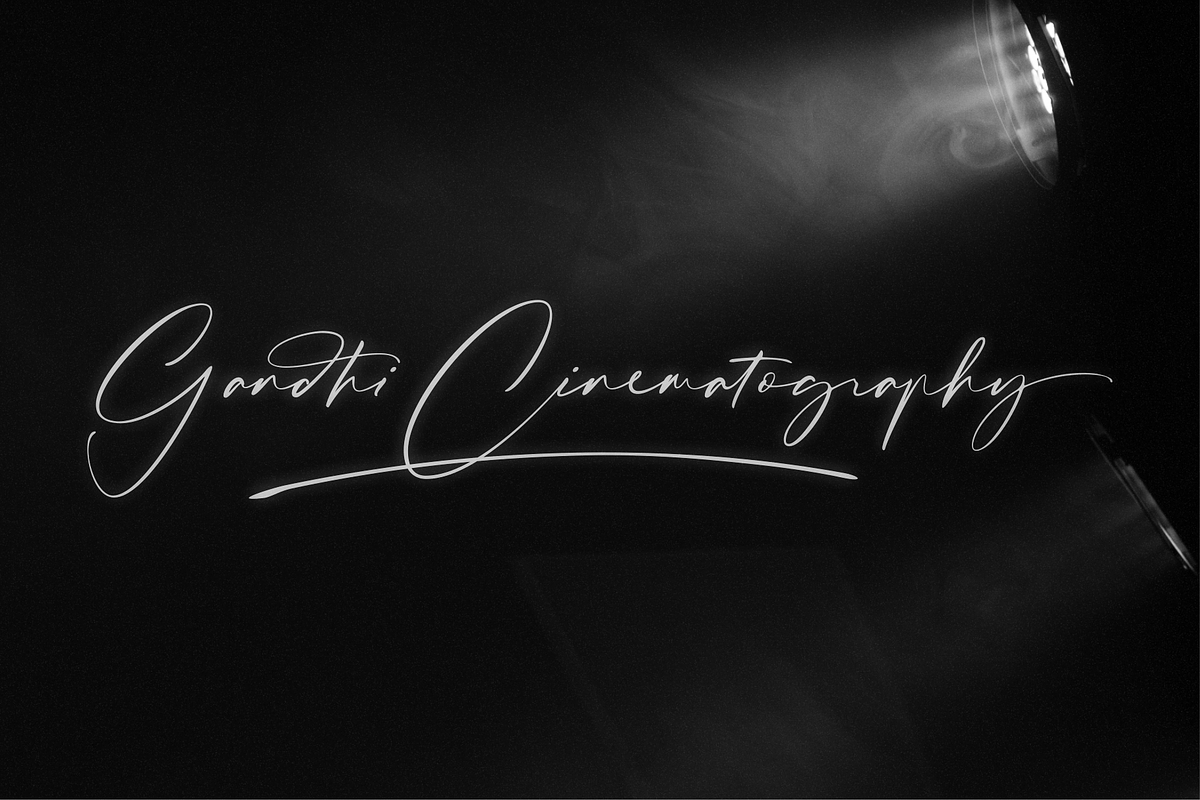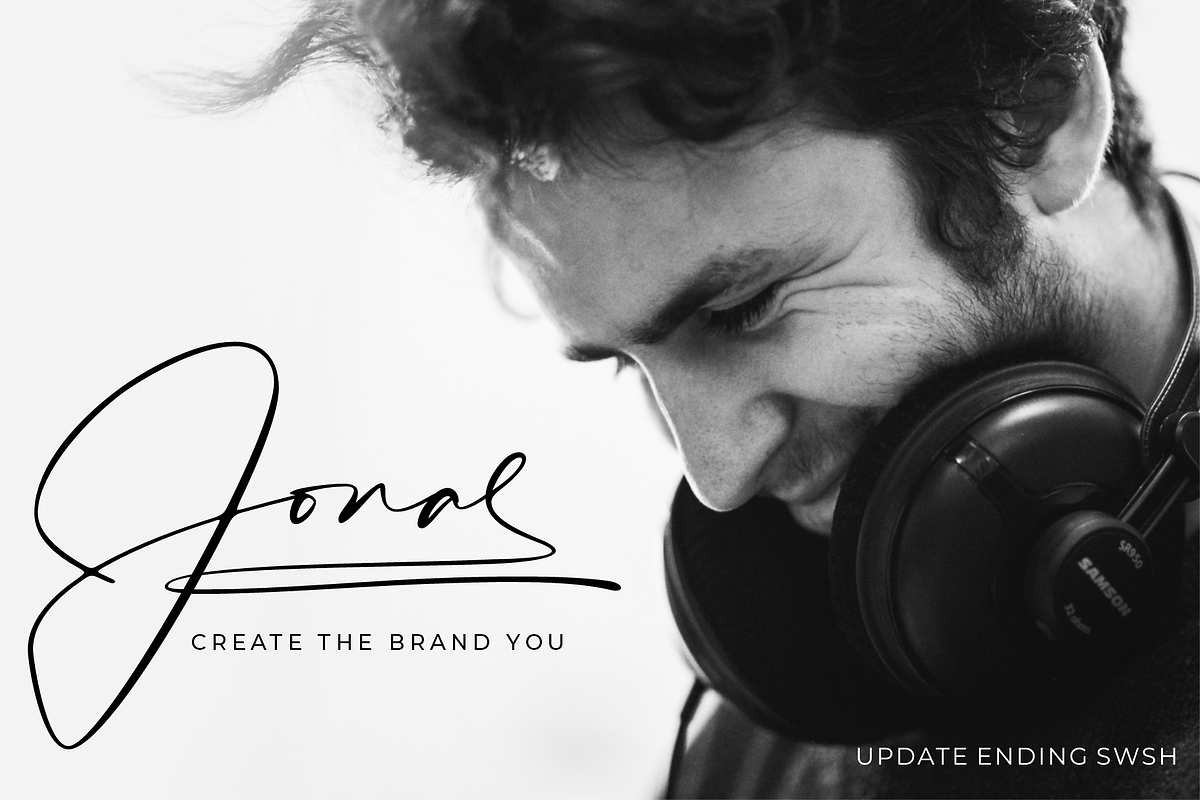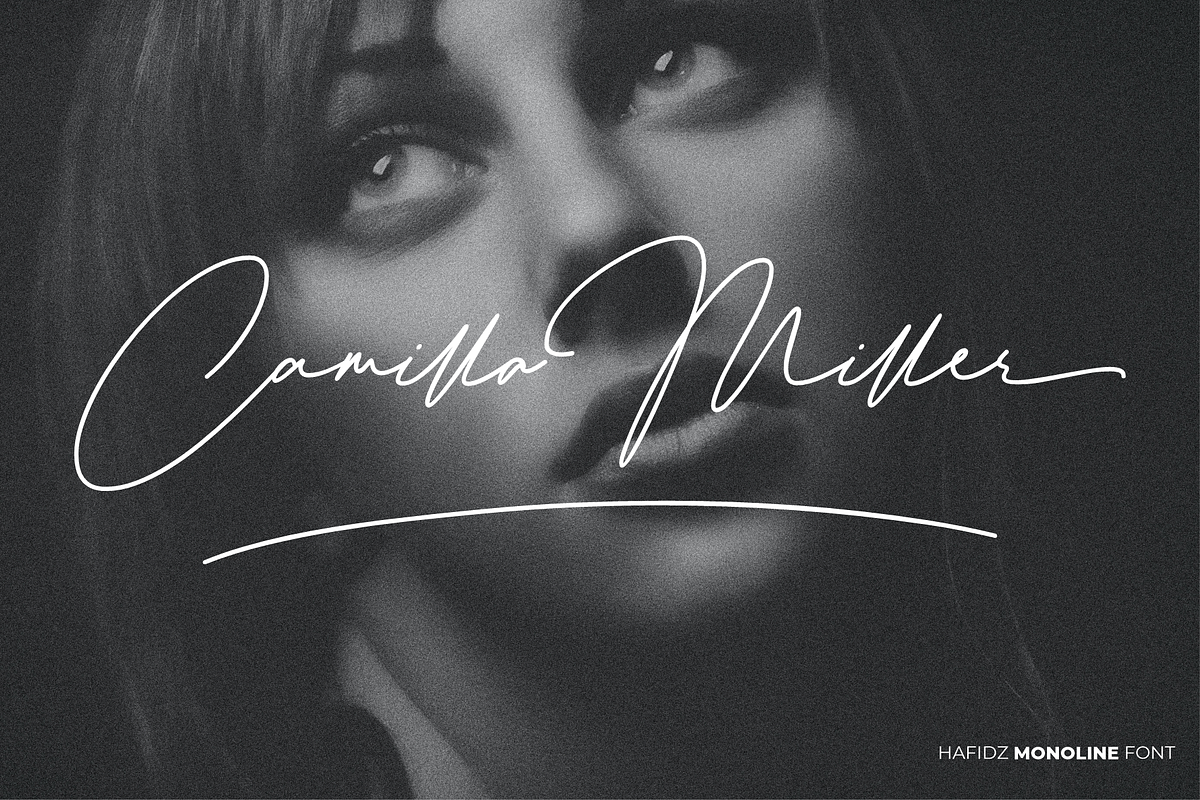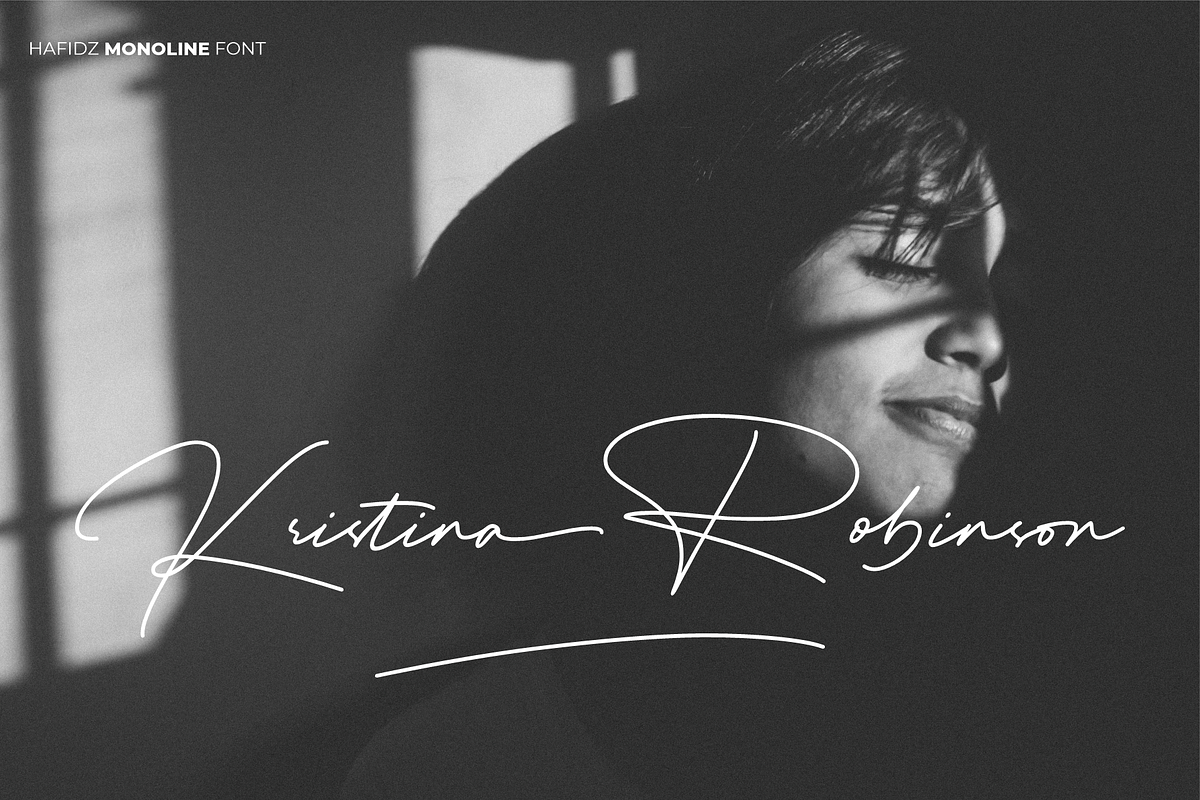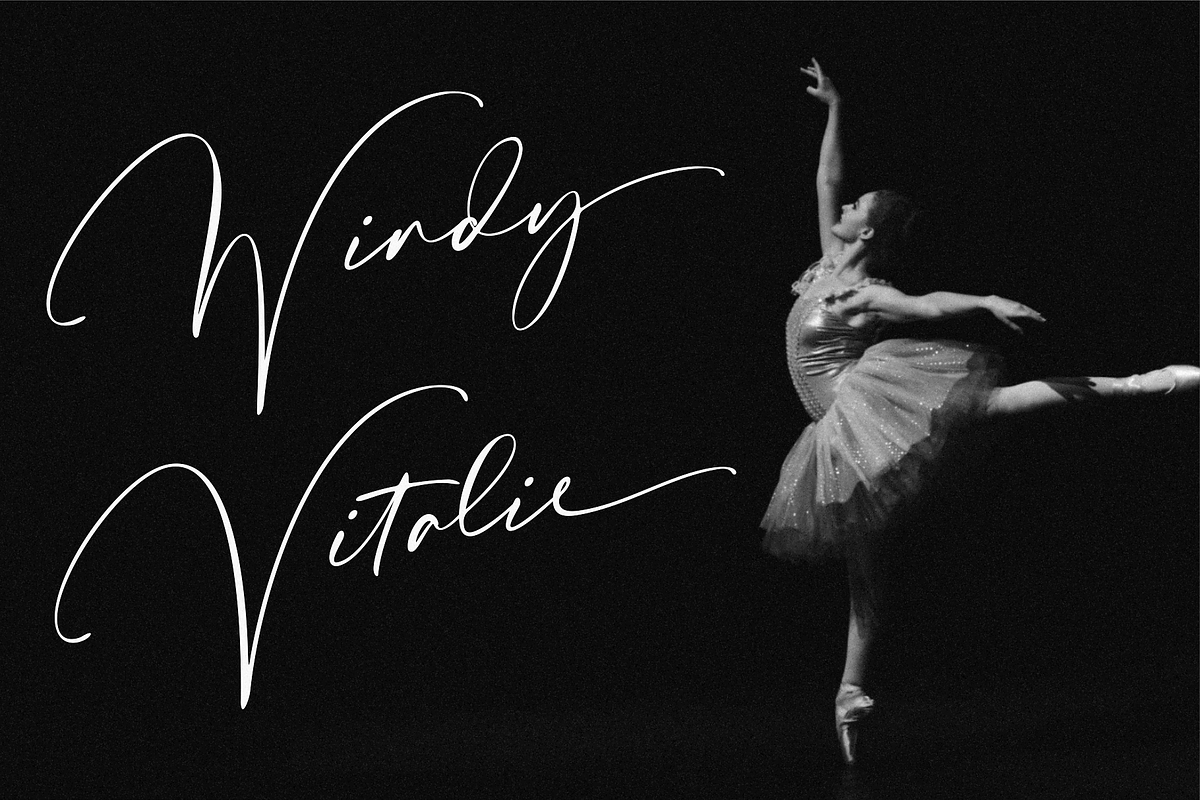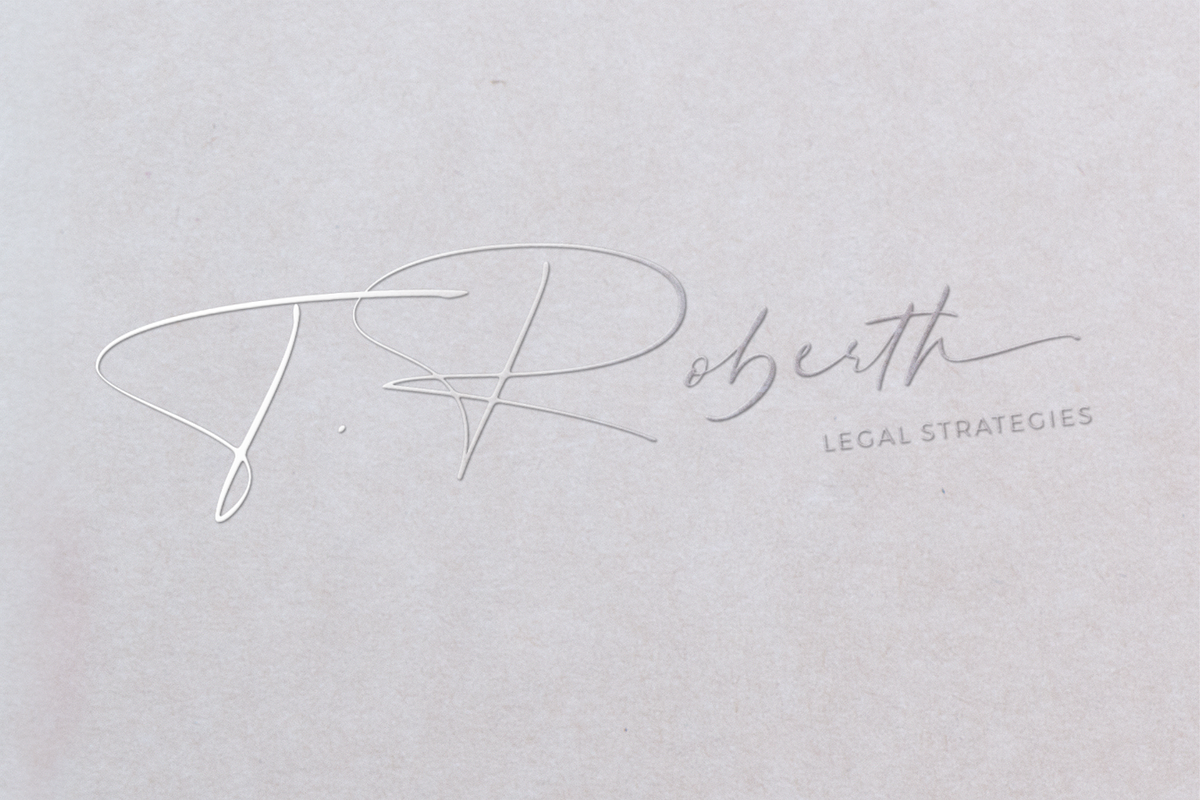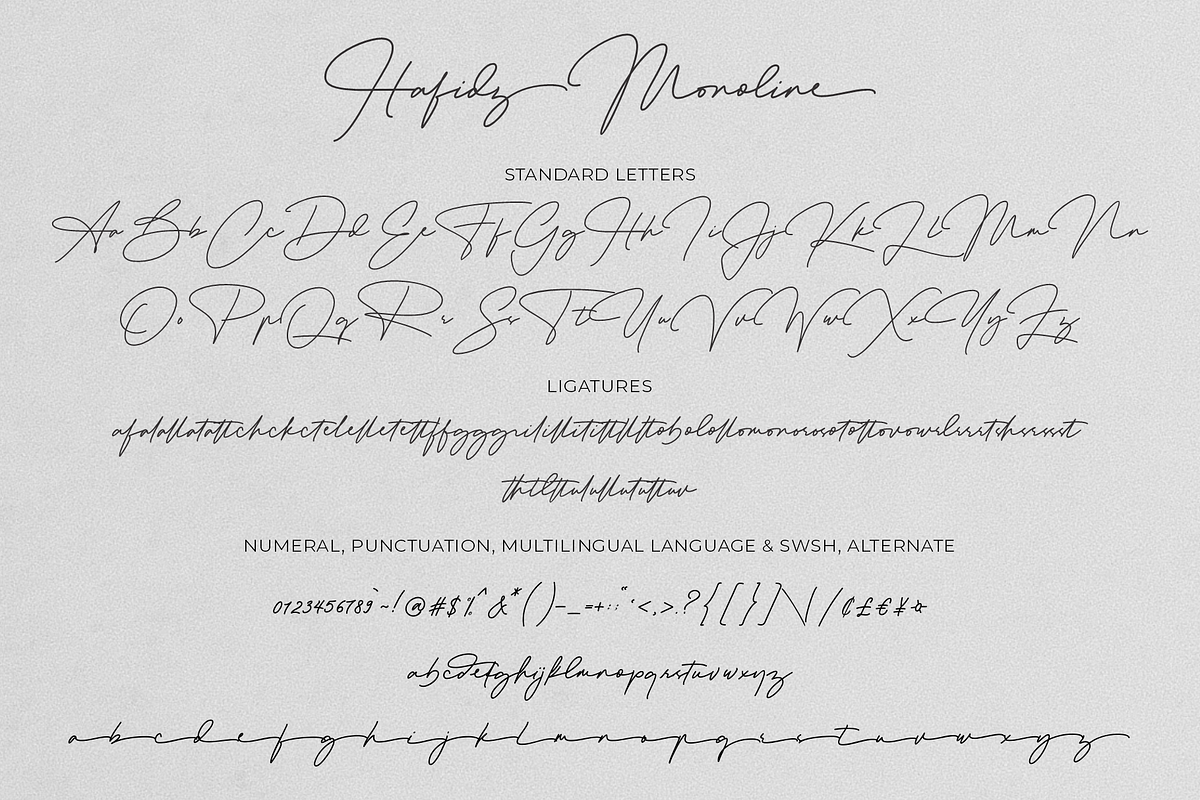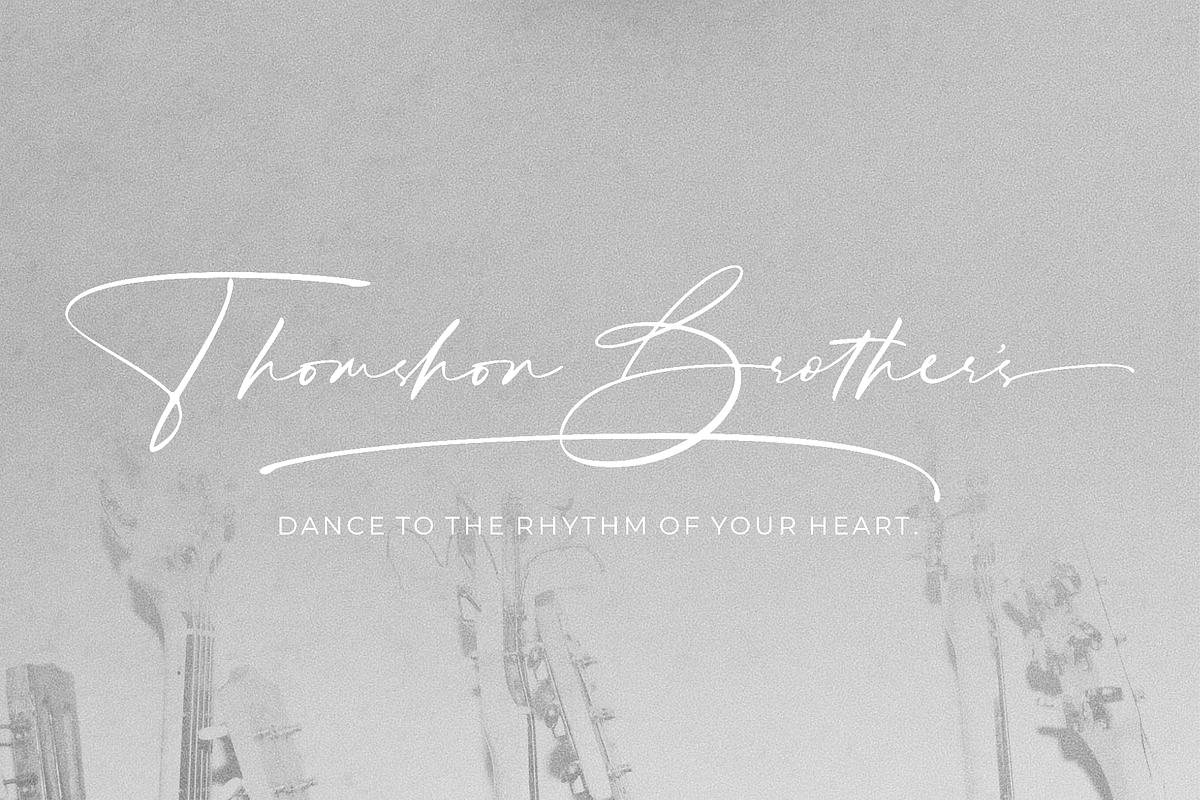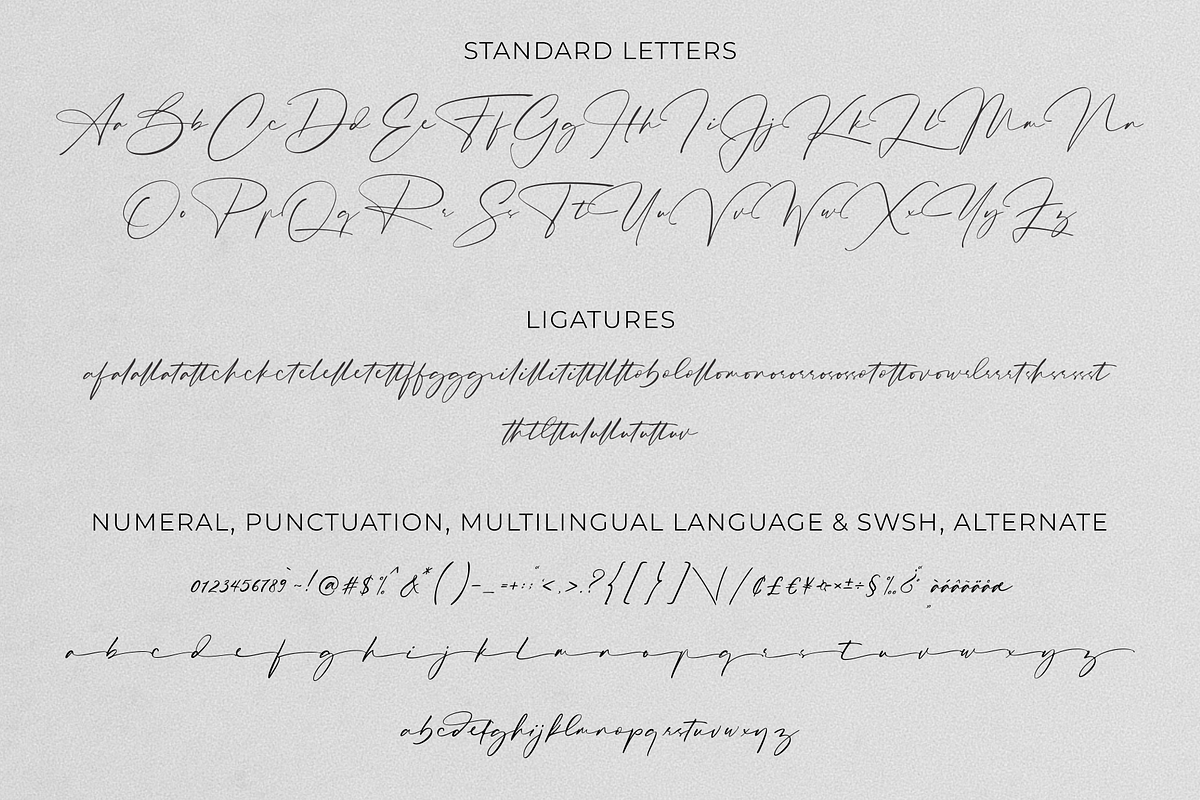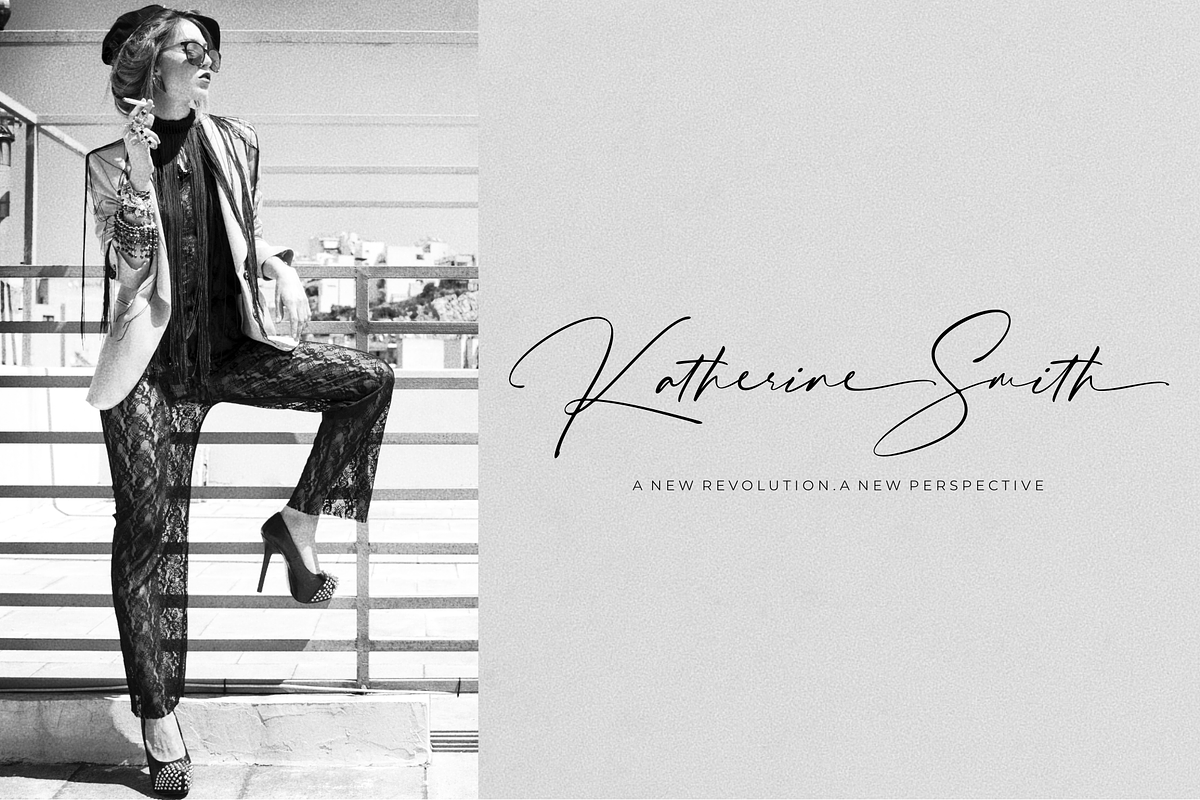
Hafidz – Luxury Signature Font
If you are looking for high-quality, cool, and luxury signature fonts, Hafidz is one of your best choices. Start your digital signature with this brand-new font, Hafidz. Hafidz will help you create stunning signature logos for you, your company, and your projects. With sharp diagonal lines and ink splatters in the background, this signature font has 2 styles: Regular and Monoline. Alternate letters appear in the beginning, middle, and ending positions of a word – optimal for signature typography. The added swash will give you an even more personal touch to your greeting cards or lettering. Hafidz will bring a sense of sophistication and elegance to your digital signatures. Made with love from us to you. Create wonderful signature typography with Hafidz today!
Hafidz features:
- A full set of upper & lowercase characters
- 48 Gorgeous ligatures
- Lowercase alternates characters
- Lowercase beginning swashes
- Lowercase ending swashes
- Multilingual symbols
- lowercase character beginning swash
- lowercase character ending swash
- Hafidz Monoline Font